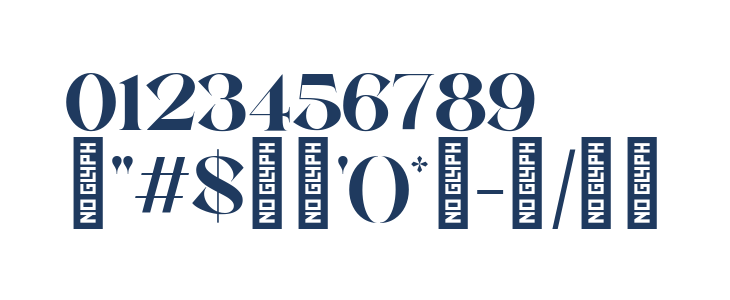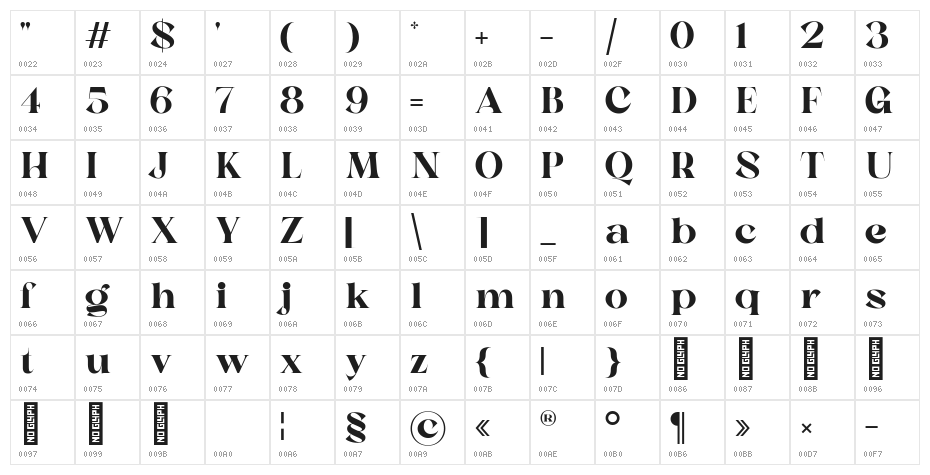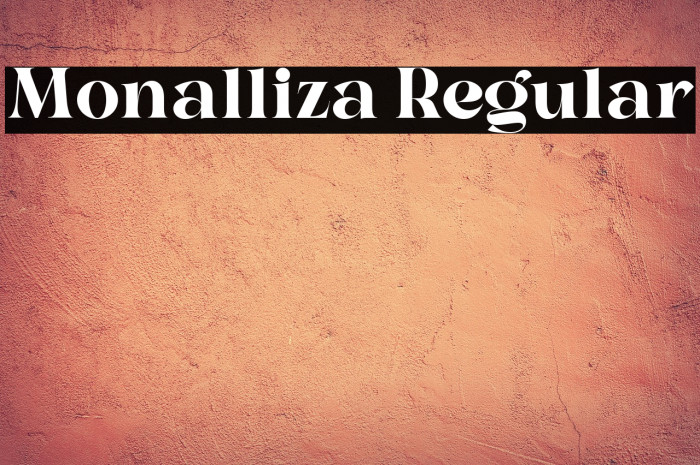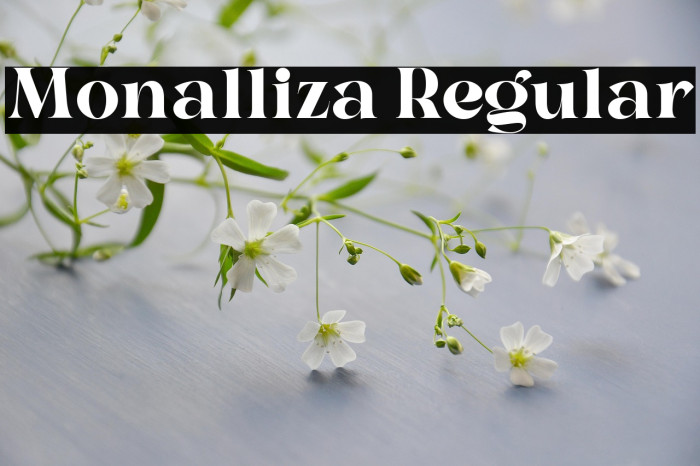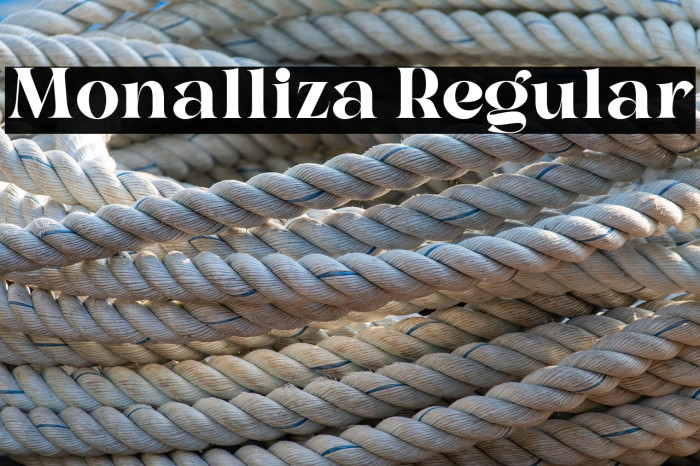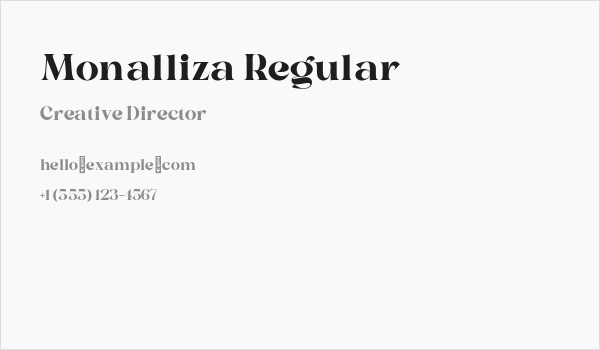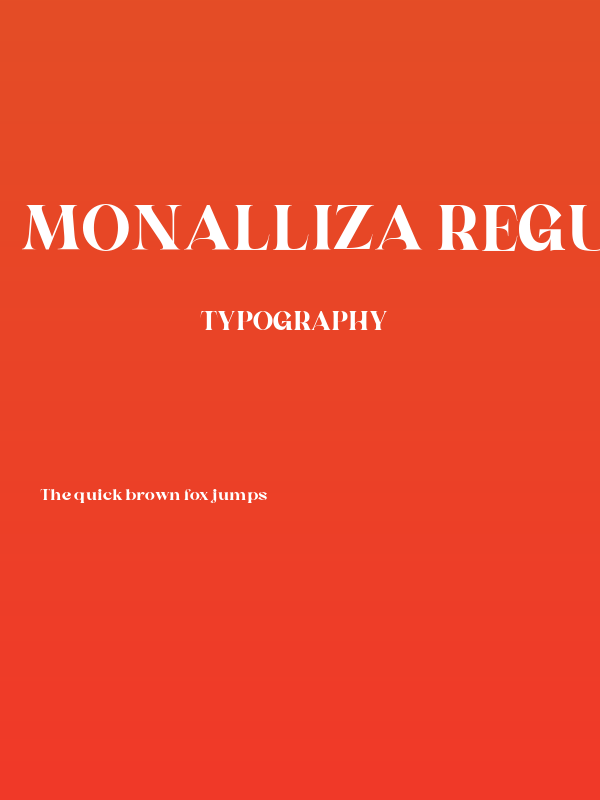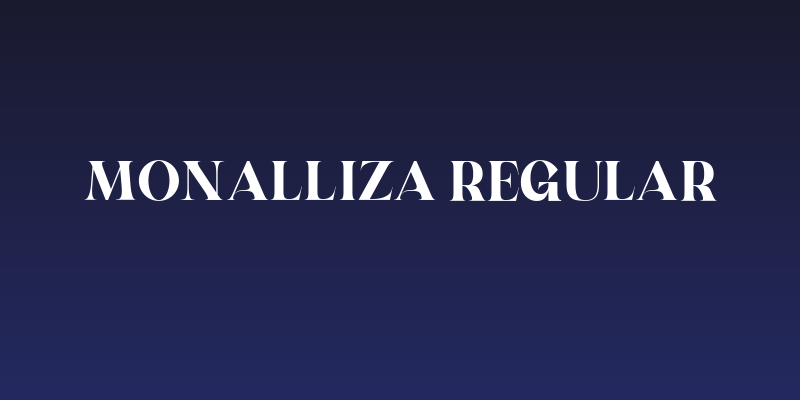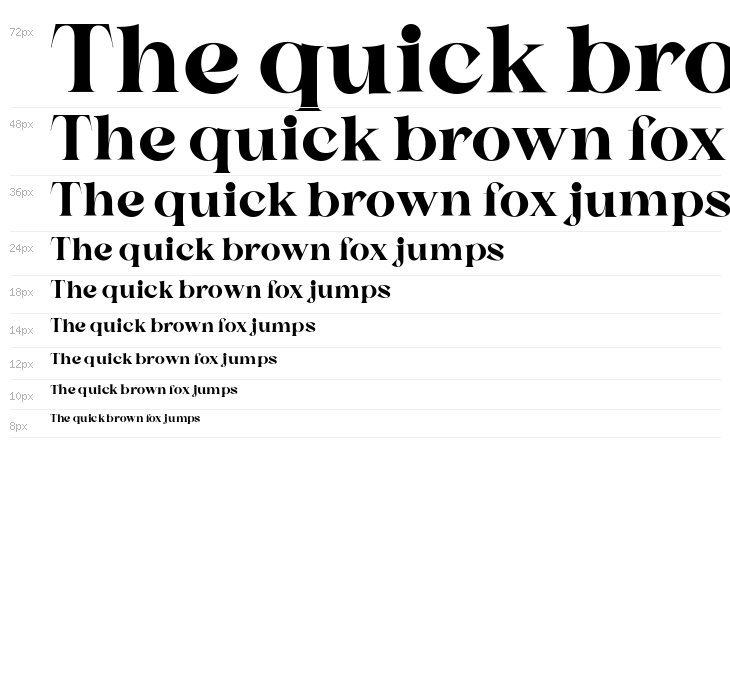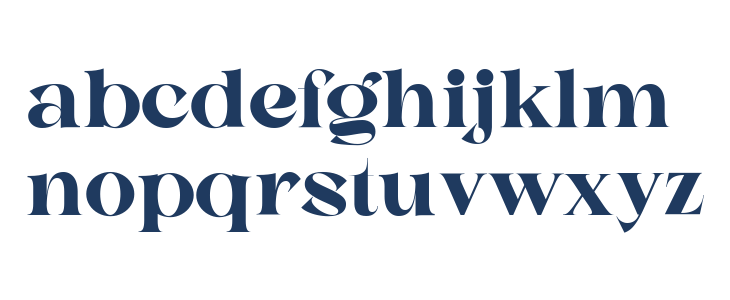
Monalliza Regular Font
Monalliza Regular Description
This font features a striking and elegant design with high contrast between thick and thin strokes, giving it a sophisticated and dramatic appearance. The uppercase letters are bold and commanding, while the lowercase letters maintain a graceful flow. The numerals are distinct and stylish, complementing the overall aesthetic. Special characters are crafted with attention to detail, adding to the font's versatility. The unique serifs and curves make it suitable for projects that require a touch of luxury and refinement.
| Proposed Projects | Ideal for luxury branding, editorial design, high-end product packaging, and elegant invitations. |